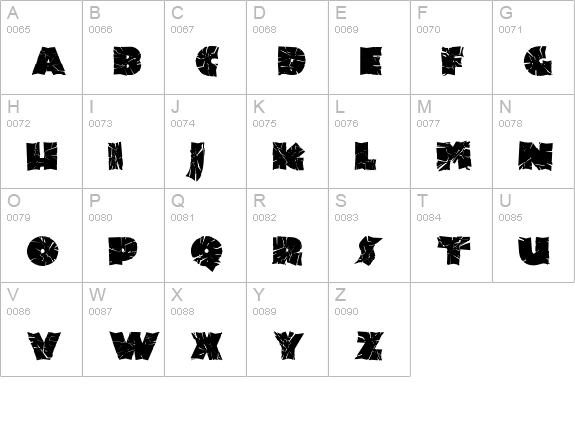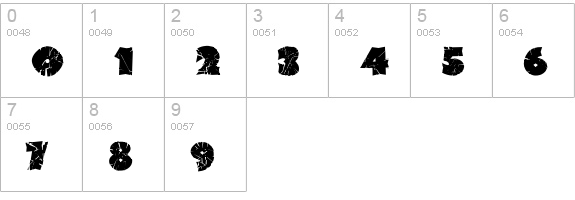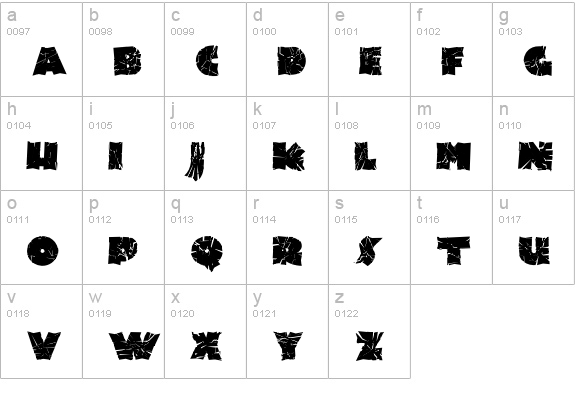
Newland Crashed Font Details
Newland Crashed font is a bold and striking display typeface that captures the essence of edgy design. With its rugged and distressed appearance, this font exudes a sense of raw energy and rebellious spirit. Perfect for creating eye-catching headlines, posters, and branding materials, Newland Crashed font is sure to make a powerful statement. What sets Newland Crashed font apart is not only its unique style but also the fact that it is available for free. You can easily download this font at FontsMarket.com and use it in your personal and commercial projects without any restrictions. Embrace the unconventional and make a bold statement with Newland Crashed font today!